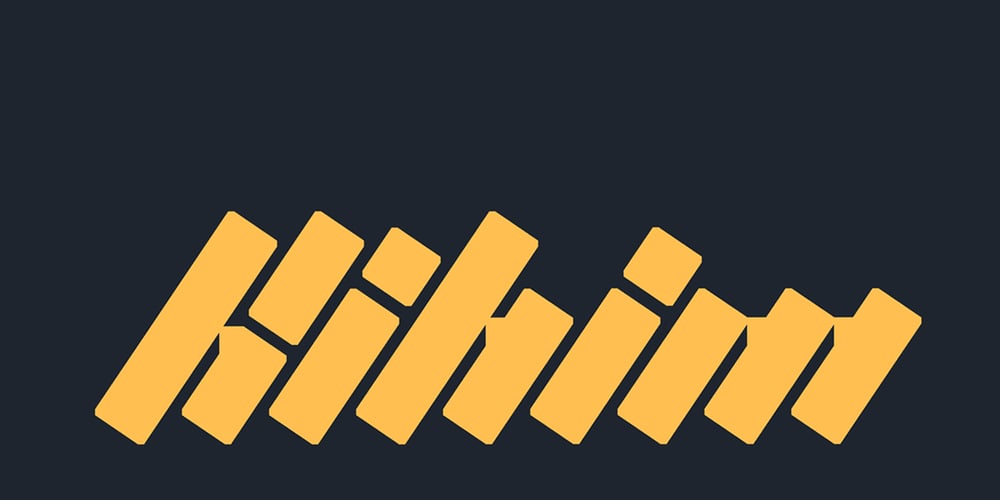
Kihim Font Family was designed by Hitesh Malaviya and published by Indian Type Foundry. Kihim contains 1 styles and family package options. Kihim in a single-weight display typeface. It is grid-based design – and a very decorative one at that. All of its letterforms are set on an extreme angle. The ‘tops’ and ‘bottoms’ of each stroke reflect that angle, giving the typeface a ‘rotalic’ feeling, as if each letterform was rotated clockwise. Designed by Hitesh Malaviya, Kilhim is his interpretations of the late artist Nasreen Mohamedi’s drawings and photographs. Through the interplay of light and shadows, her work explored the creation and consumption of form. It featured highly structured grids, just like this typeface. Her work achieved a unique level of abstraction, in which simple marks caused grids to form and deform. In her photography, she concentrated on sparseness and shapes. Physical space occupied by the body was a point of departure for her. Beyond the body, there was the urban fabric of the city: the spaces created by walls, windows and intervals in architectural structures, through which people pass. Her almost mathematical placement of lines indicated a sophisticated handling of formal/aesthetic relations on the picture plane, and she carefully weighed the intervals between lines, releasing them onto the page with a rhythmic flow that alluded to musical notation. A lot of intriguing glyph repositioning happens with text set in Kihim, once OpenType features like ‘Contextual Alternates’ are activated. The font also has oldstyle figures as an optional OpenType feature, which is really quite an opulent extra for such an ornamental display typeface. With Kihim’s abstract letterforms and its use of diagonal lines, Malaviya pays homage to the rhythmic quality of Mohamedi’s oeuvre. Often, text in Kihim seems illegible or unrecognisable at first, before the reader starts to see through the rhythmic pattern of thick and thin lines: then one starts to se the written word. The Kihim typeface is named after the place where Mohamedi passed away in 1990, when she was only 53.